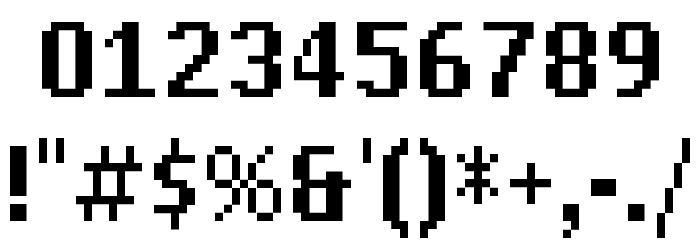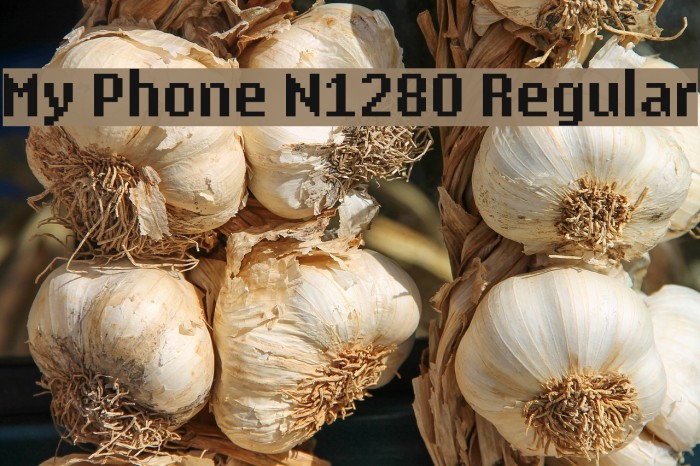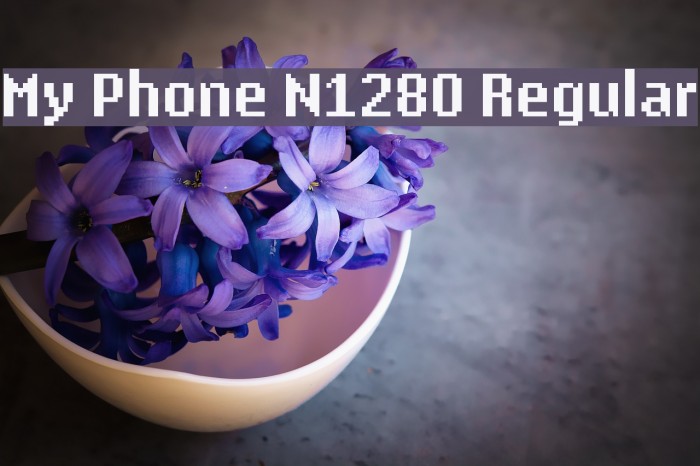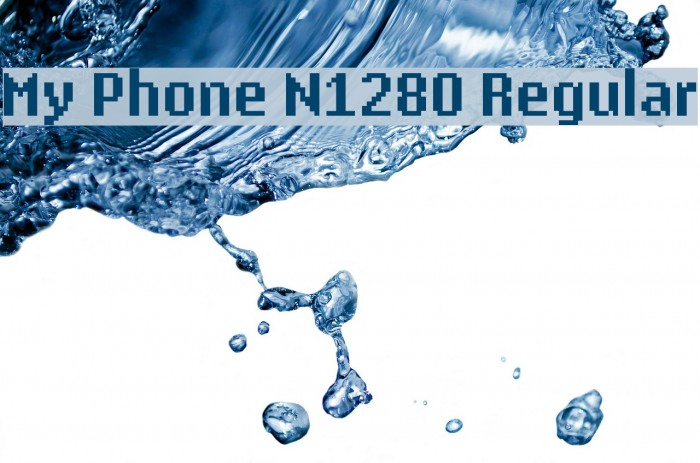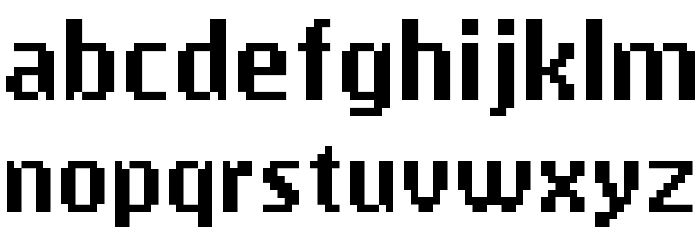
My Phone N1280 Regular Font
My Phone N1280 Regular Description
This font features a pixelated, blocky design reminiscent of early digital displays and retro video games. Each character is constructed with a grid-like precision, giving it a distinctly digital and nostalgic feel. The uppercase and lowercase letters maintain a consistent height, contributing to a uniform appearance. Numbers and special characters follow the same pixelated style, ensuring cohesiveness across all glyphs. The overall aesthetic is simplistic yet effective, capturing the essence of vintage technology.
| Overall Style | Vintage |
| Use Case | Logos, Headlines, Digital displays |
| Proposed Projects | Ideal for retro-themed designs, video game graphics, digital art projects, and any creative work that requires a nostalgic or tech-inspired look. |